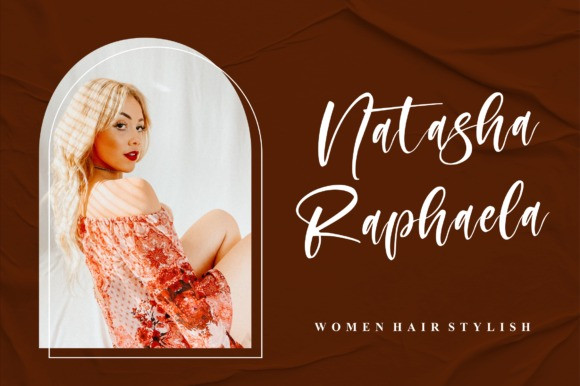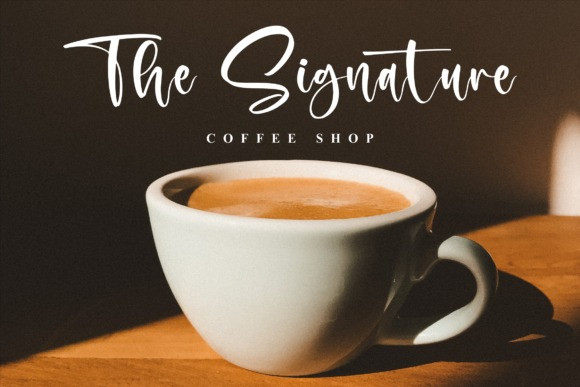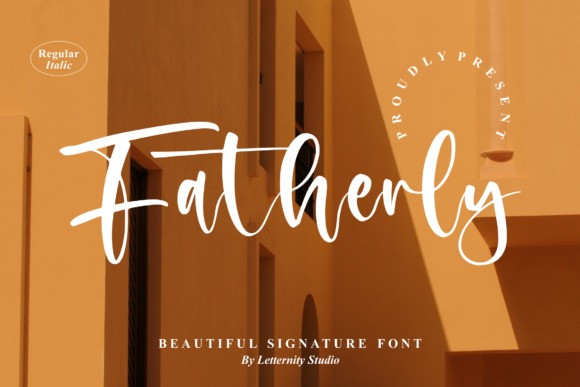
Fatherly Script Font
Fatherly Script Font – Beautiful Signature Font suitable for any projects such as logos, branding projects, homeware designs, product packaging, mugs, quotes, posters, shopping bags, t-shirts, book covers, name cards, invitation cards, greeting cards, labels, photography, watermark, special events, and all your other lovely projects that need a beautiful script taste.